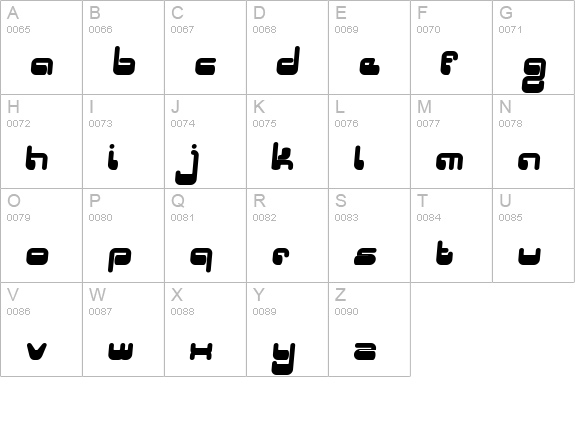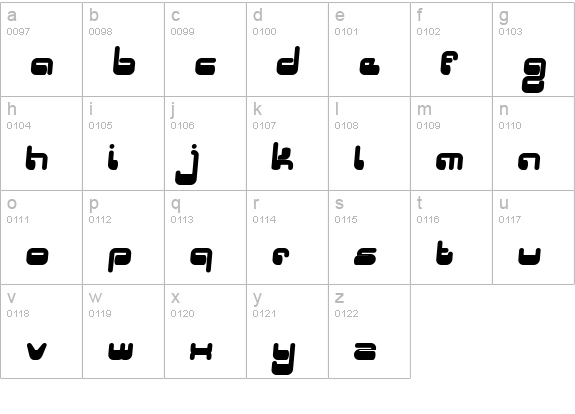
Hungrumlaut Font Details
Hungrumlaut font is a modern and stylish typeface that exudes sophistication and creativity. With its unique combination of clean lines and quirky angles, this font is perfect for adding a touch of personality to any design project. Whether you're creating a logo, branding materials, or social media graphics, Hungrumlaut font is sure to make a statement. The best part? This fantastic font is completely free to download at FontsMarket.com. So why wait? Add Hungrumlaut font to your collection today and elevate your designs to the next level.